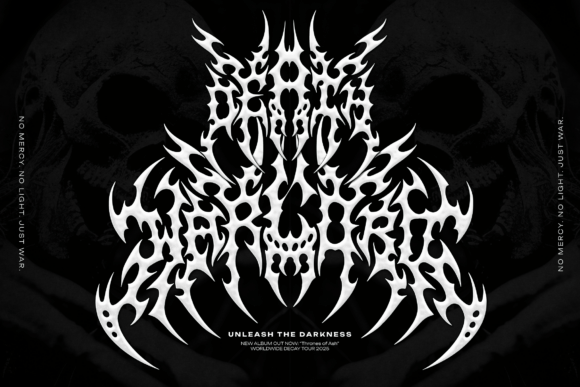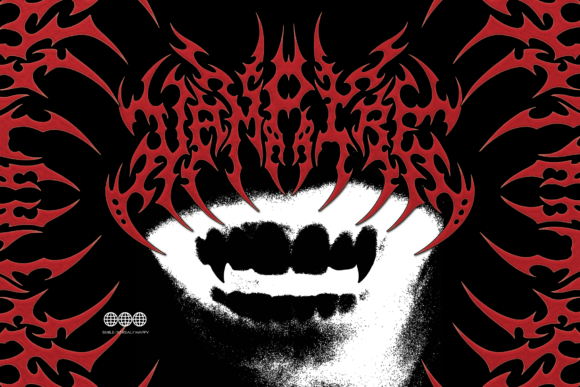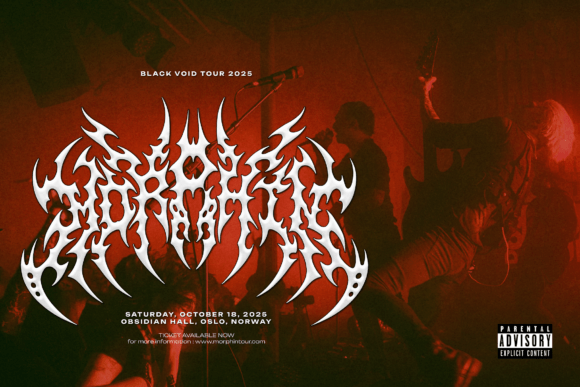
Introduction to Karnage Font
Karnage is an extreme black metal display font carved from chaos.
With razor-sharp forms, aggressive flame-inspired curves, and brutal energy, this typeface is designed for metal bands, horror titles, underground merch, and designs that scream rebellion Karnage includes over 180 glyphs and 5 wicked alternates, giving designers total creative carnage in every letter.